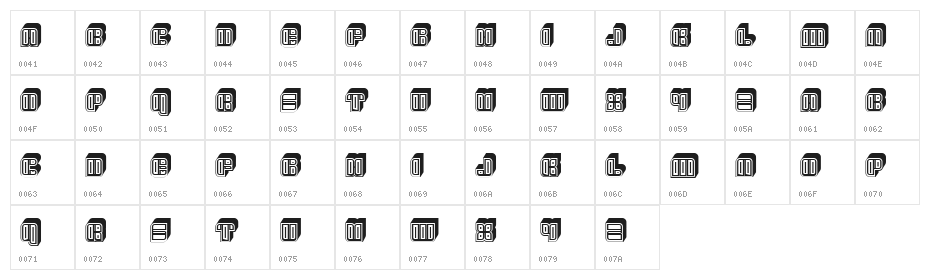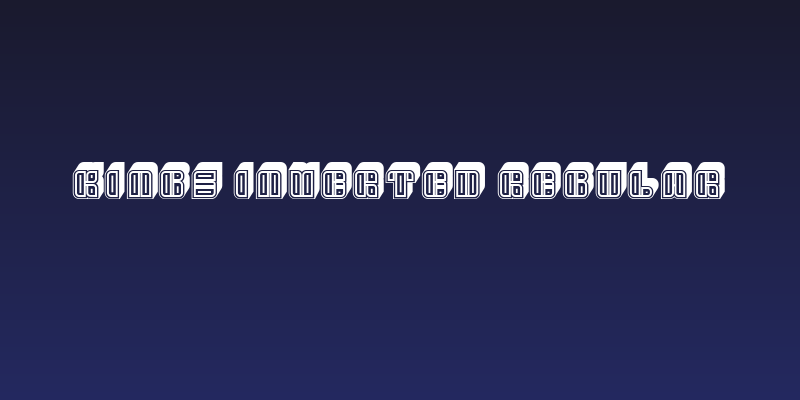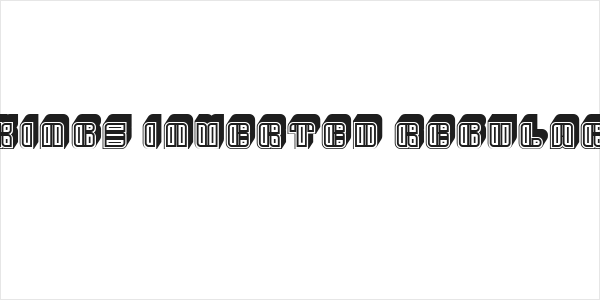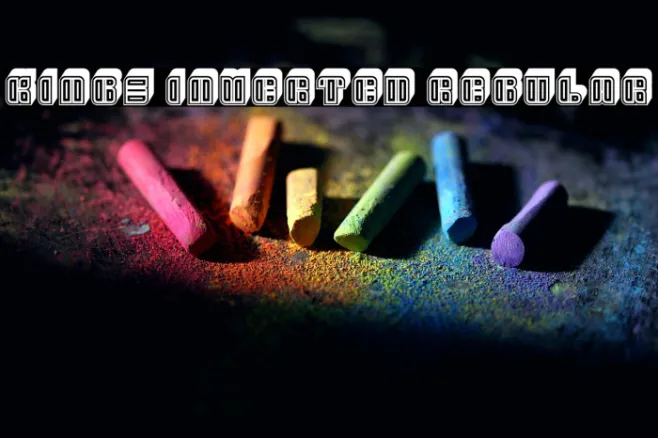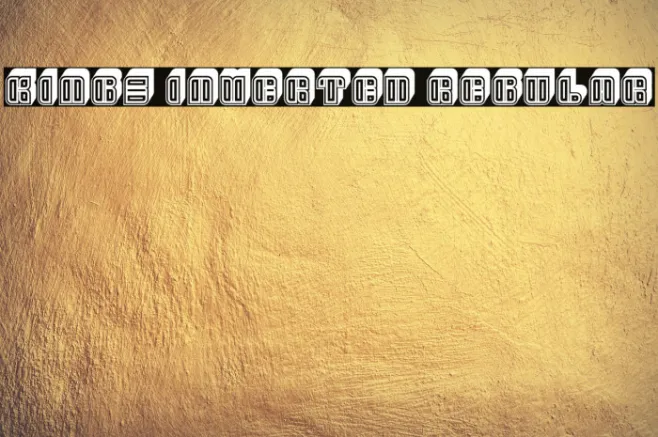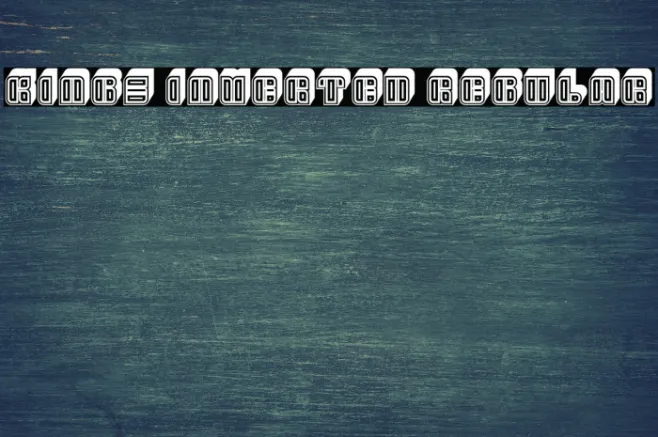
Kings Inverted Regular Font
Kings Inverted Regular Description
This font features a bold, geometric design with a three-dimensional effect. Each character is outlined with a thick black border, creating a striking contrast against the white inner lines that form the letters. The style is highly decorative, with a futuristic and digital aesthetic. The characters are uniformly wide, giving a monospaced appearance, although they are not strictly monospaced. The font's unique structure makes it ideal for attention-grabbing headlines or artistic projects where a bold statement is needed.
| Overall Style | Futuristic, Digital |
| Proposed Projects | Ideal for posters, logos, video game titles, and any project requiring a futuristic or digital theme. |